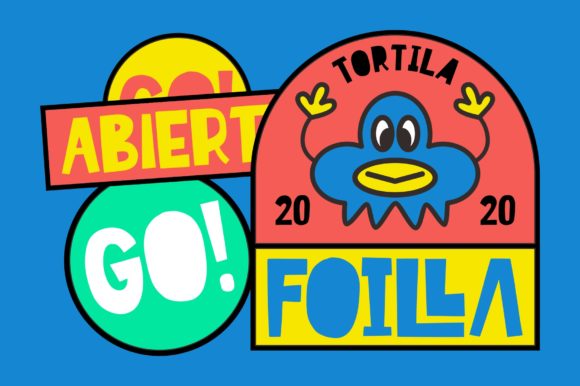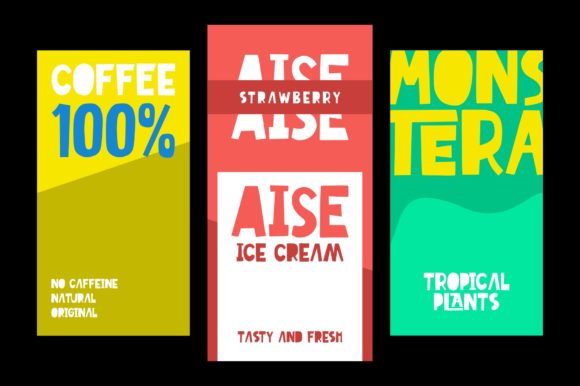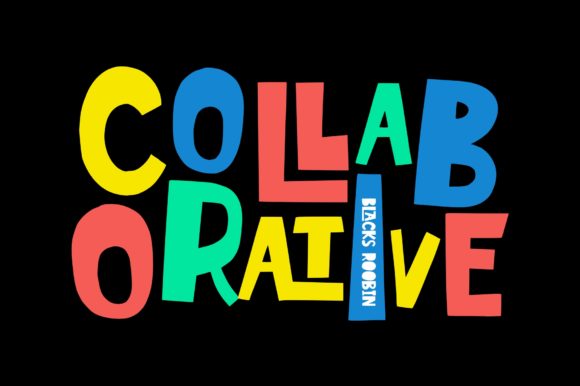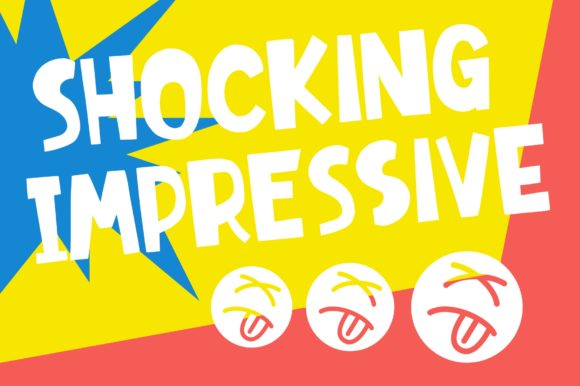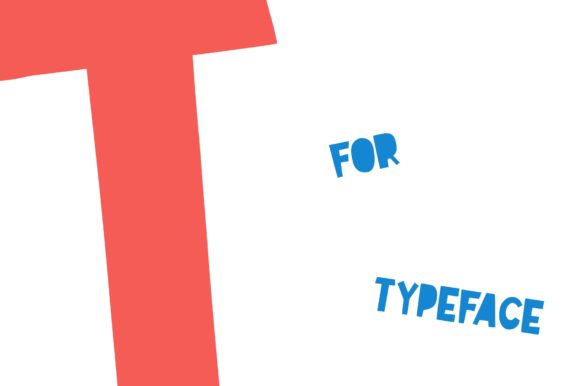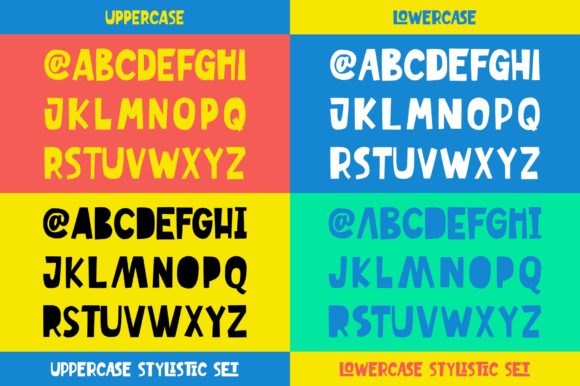
Introducing Blacks Roobin Font: The Ultimate Display Font for Creative Projects
Are you tired of using the same old fonts for your creative projects? Look no further than Blacks Roobin Font, a bold and authentic display font that’s perfect for making a statement. With its friendly feel and chunky lettered style, Blacks Roobin is incredibly versatile and can be used for a wide range of design ideas.
What Makes Blacks Roobin Font So Special?
Blacks Roobin Font is a unique and eye-catching font that’s designed to grab attention. Its bold and chunky lettering style makes it perfect for headlines, titles, and other display text. But what really sets Blacks Roobin apart is its friendly feel. Unlike some other bold fonts that can come across as harsh or aggressive, Blacks Roobin has a warm and approachable vibe that’s perfect for brands and designers who want to connect with their audience.
Key Features of Blacks Roobin Font
- Bold and Authentic: Blacks Roobin Font is a bold and authentic display font that’s perfect for making a statement.
- Chunky Lettered Style: The font’s chunky lettered style makes it perfect for headlines, titles, and other display text.
- Friendly Feel: Blacks Roobin has a warm and approachable vibe that’s perfect for brands and designers who want to connect with their audience.
- Versatile: Blacks Roobin is incredibly versatile and can be used for a wide range of design ideas, from logos and branding to posters and social media graphics.
Uses for Blacks Roobin Font
So, what can you use Blacks Roobin Font for? The possibilities are endless! Here are a few ideas to get you started:
- Logos and Branding: Use Blacks Roobin Font to create a bold and eye-catching logo that’s sure to grab attention.
- Posters and Flyers: Blacks Roobin is perfect for creating eye-catching posters and flyers that will stand out in a crowd.
- Social Media Graphics: Use Blacks Roobin Font to create engaging social media graphics that will help you connect with your audience.
- Packaging Design: Blacks Roobin Font is also great for packaging design, adding a bold and eye-catching touch to your product labels and packaging.
Tips for Using Blacks Roobin Font
Here are a few tips for using Blacks Roobin Font in your designs:
- Use it Boldly: Blacks Roobin Font is a bold font, so don’t be afraid to use it boldly. Experiment with different sizes and colors to create a statement piece.
- Pair it with Other Fonts: Blacks Roobin Font pairs well with a variety of other fonts, so don’t be afraid to experiment with different combinations.
- Use it Consistently: To create a cohesive look, use Blacks Roobin Font consistently throughout your design.
| Font Name | Blacks Roobin Font |
| Author | Garisman Studio |
In conclusion, Blacks Roobin Font is a bold and authentic display font that’s perfect for making a statement. With its friendly feel and chunky lettered style, Blacks Roobin is incredibly versatile and can be used for a wide range of design ideas. Whether you’re a designer, crafter, or DIY enthusiast, Blacks Roobin Font is a great addition to your font library.